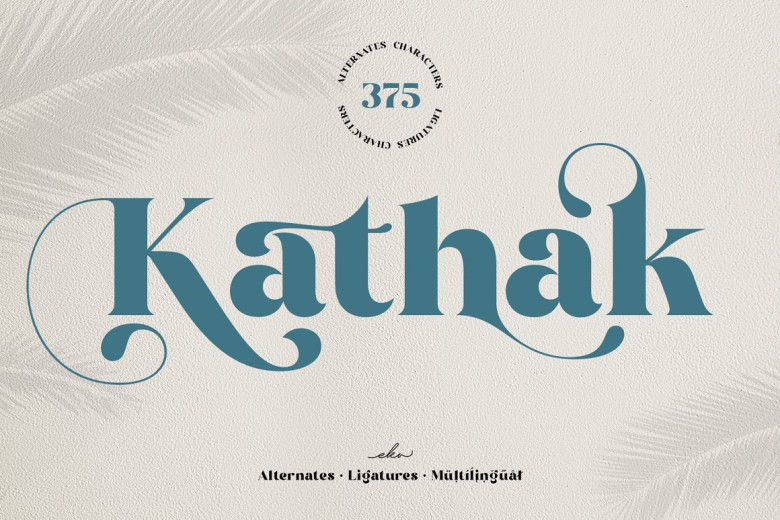
Kathak Font
Kathak is a serif font designed to bring life and texture into typographic designs with its variety of alternates, ligatures and characters. We hope you will welcome Kathak into your typographic world!
Kathak font is versatile and can be applied to a range of projects, such as logos, branding, posters, magazines, labels merchandise invitations presentations advertising advertisements quotes etc.
Kathak Modern Classy Serif Font